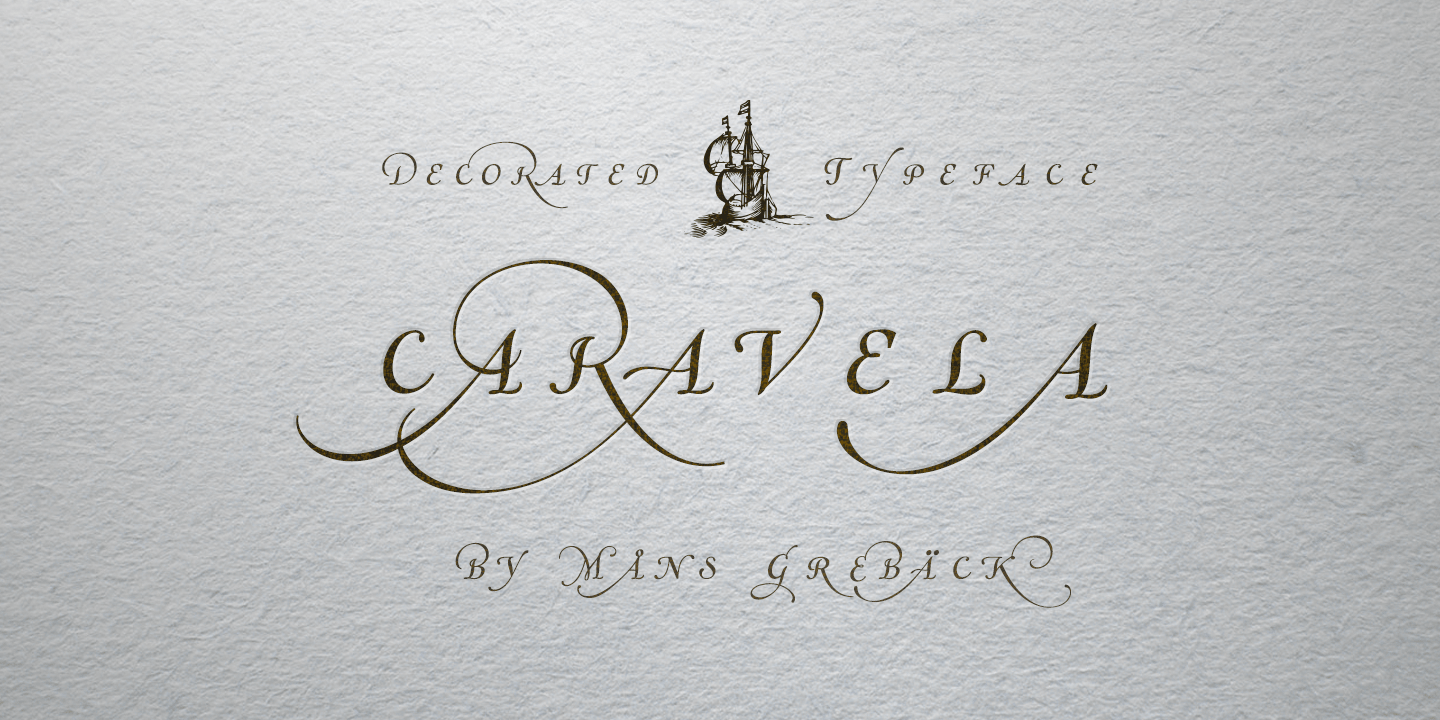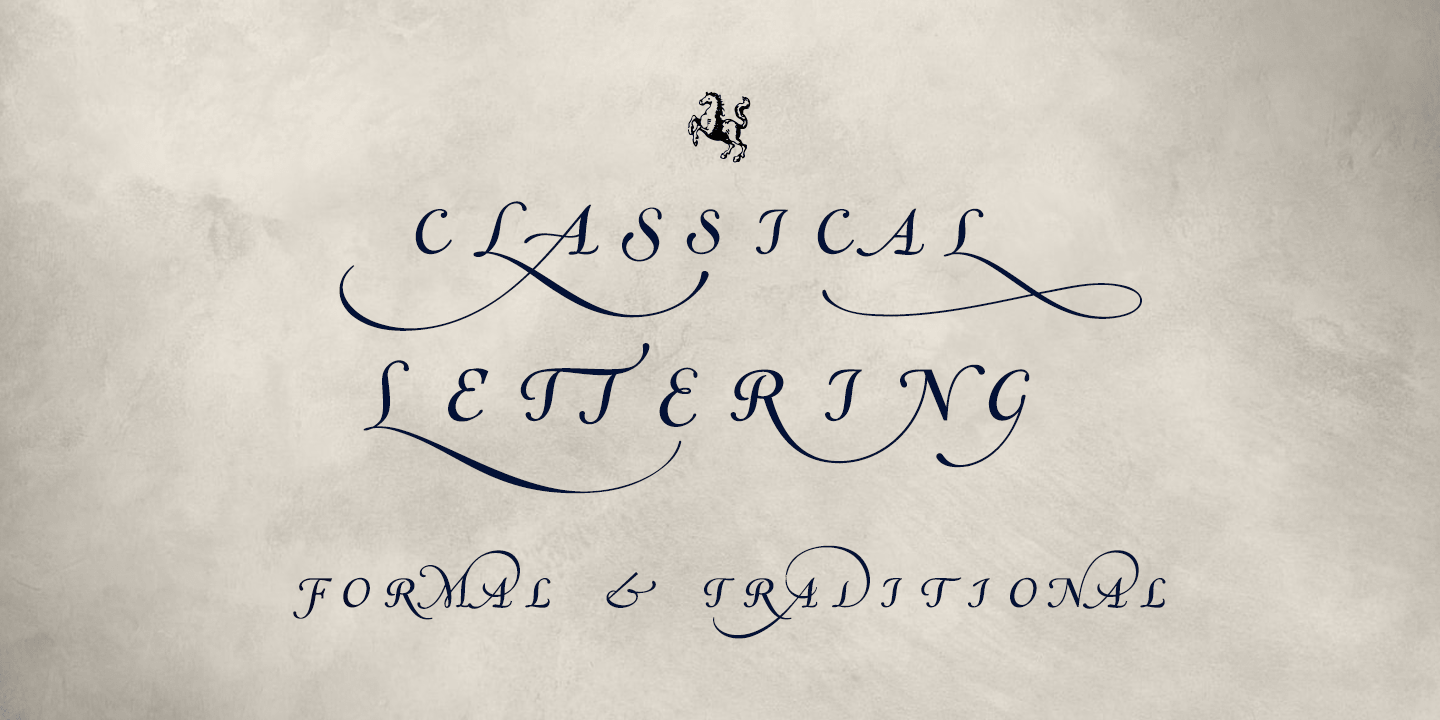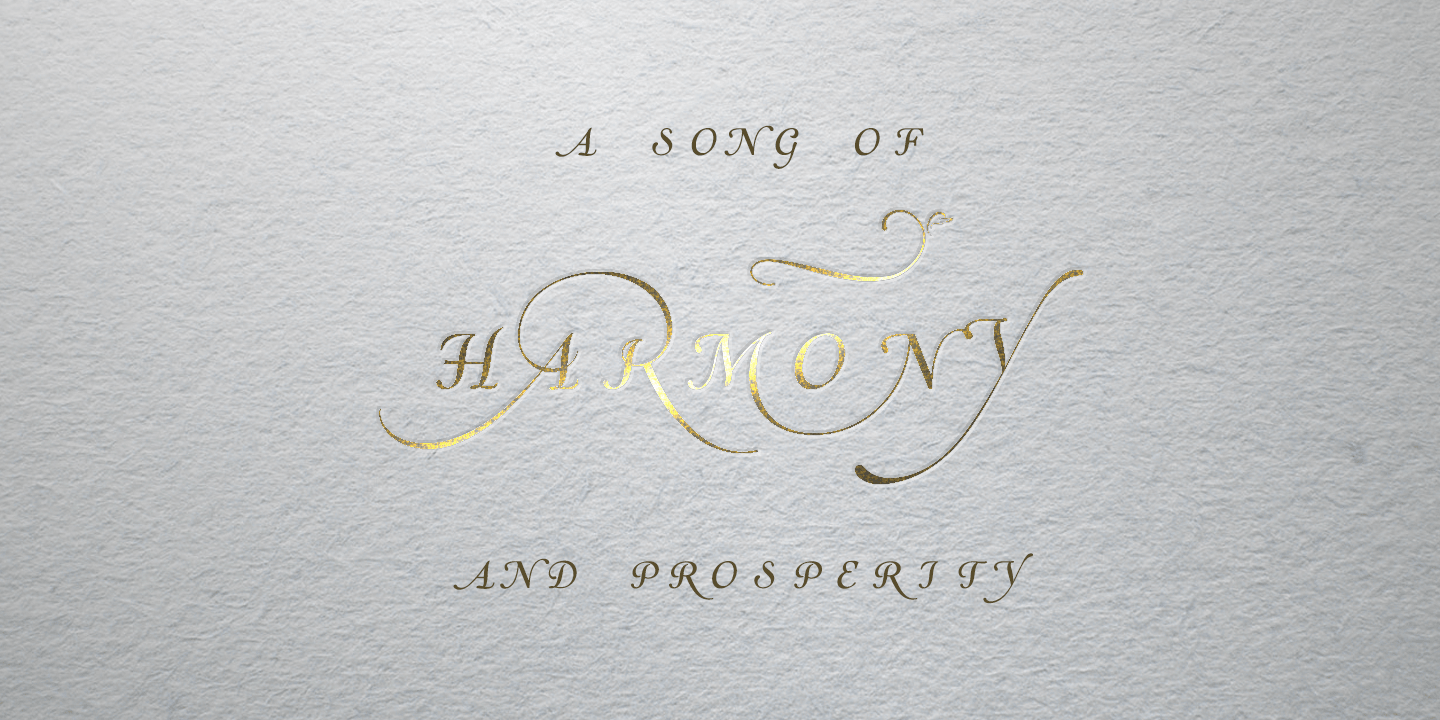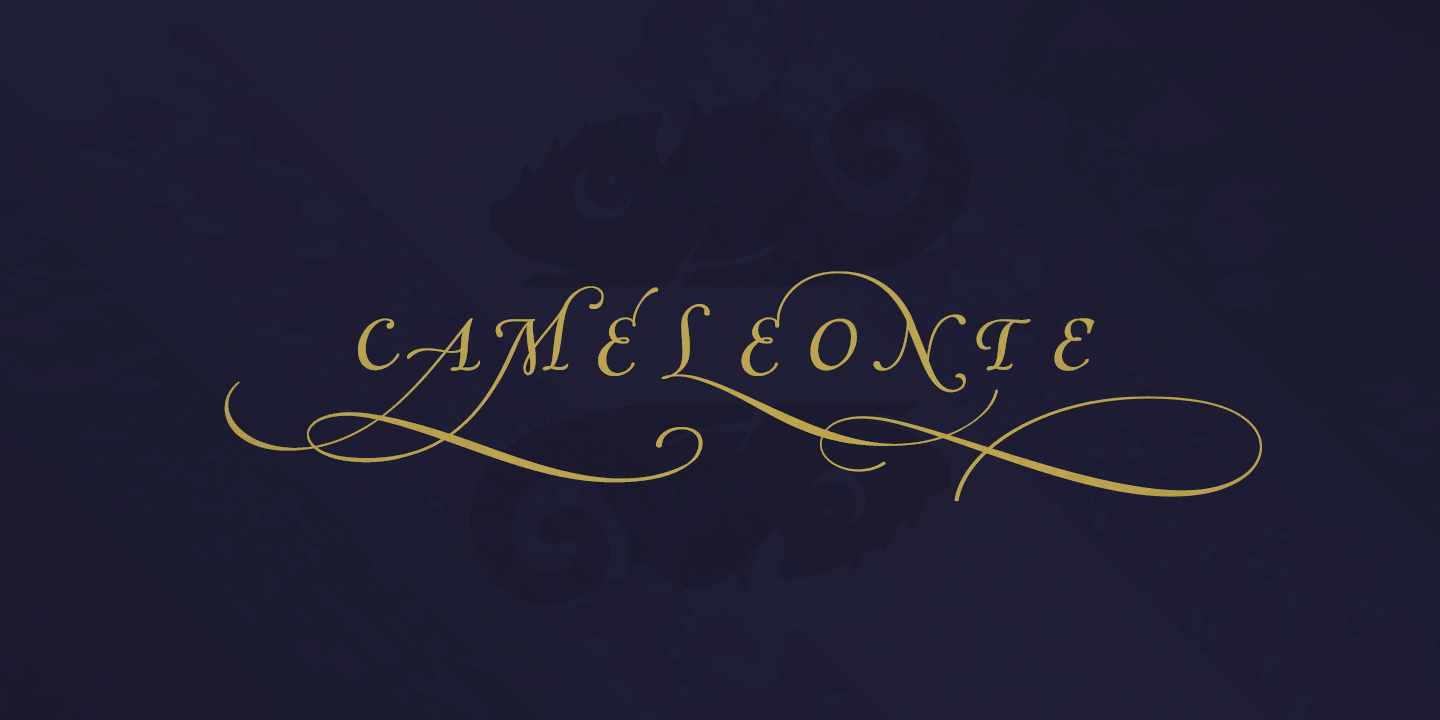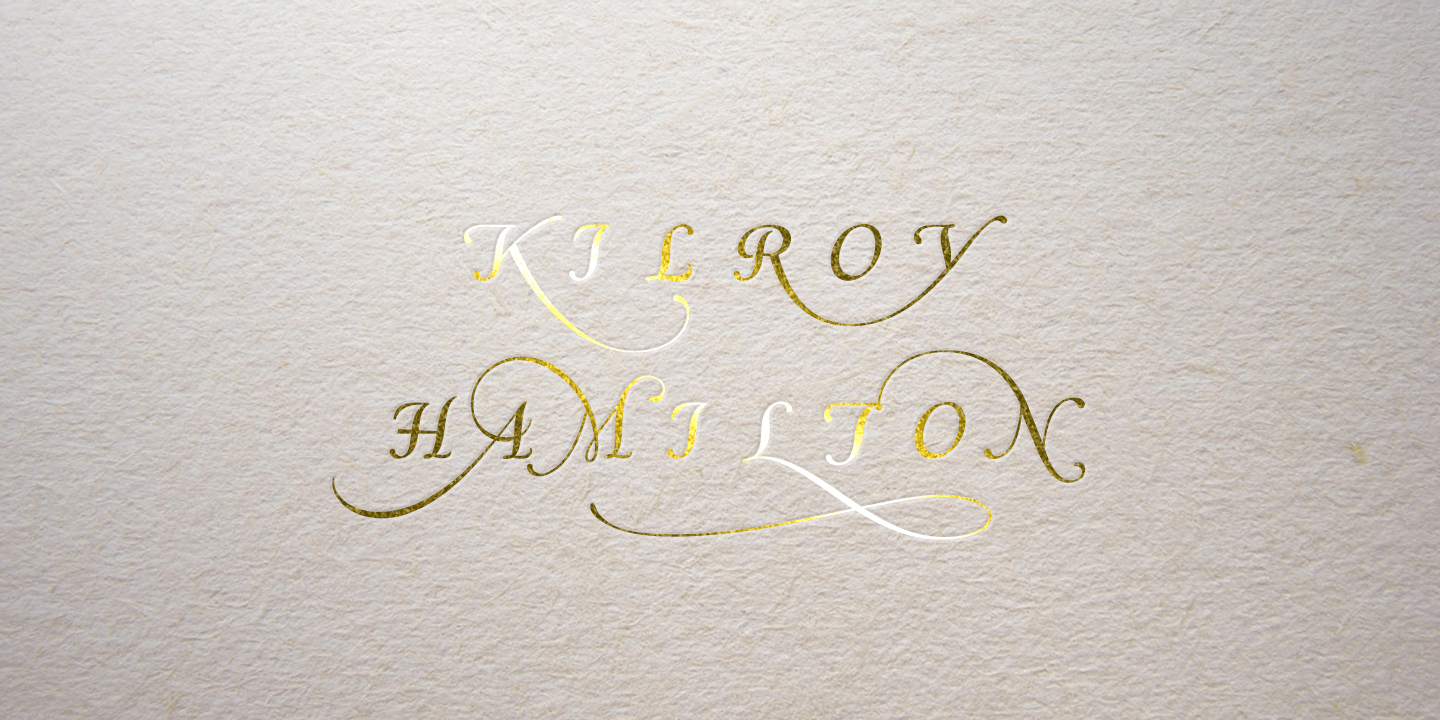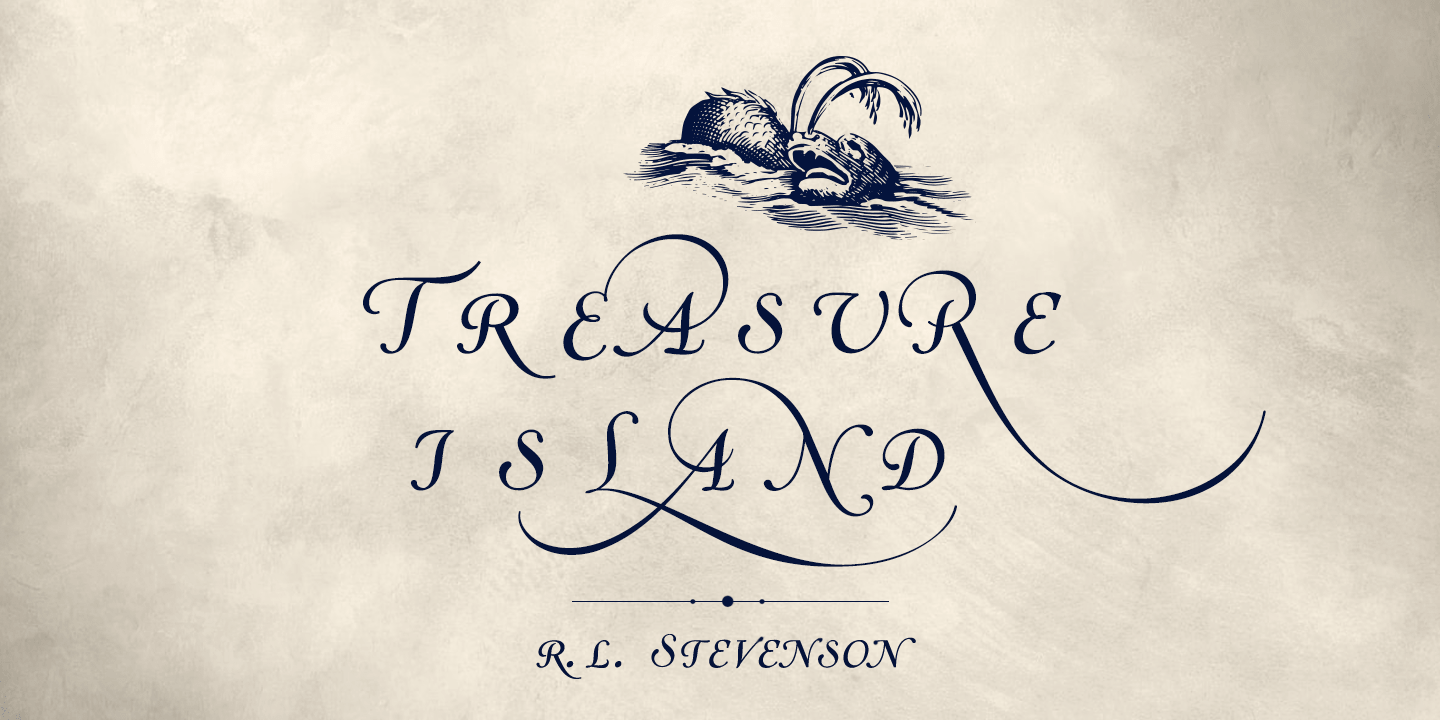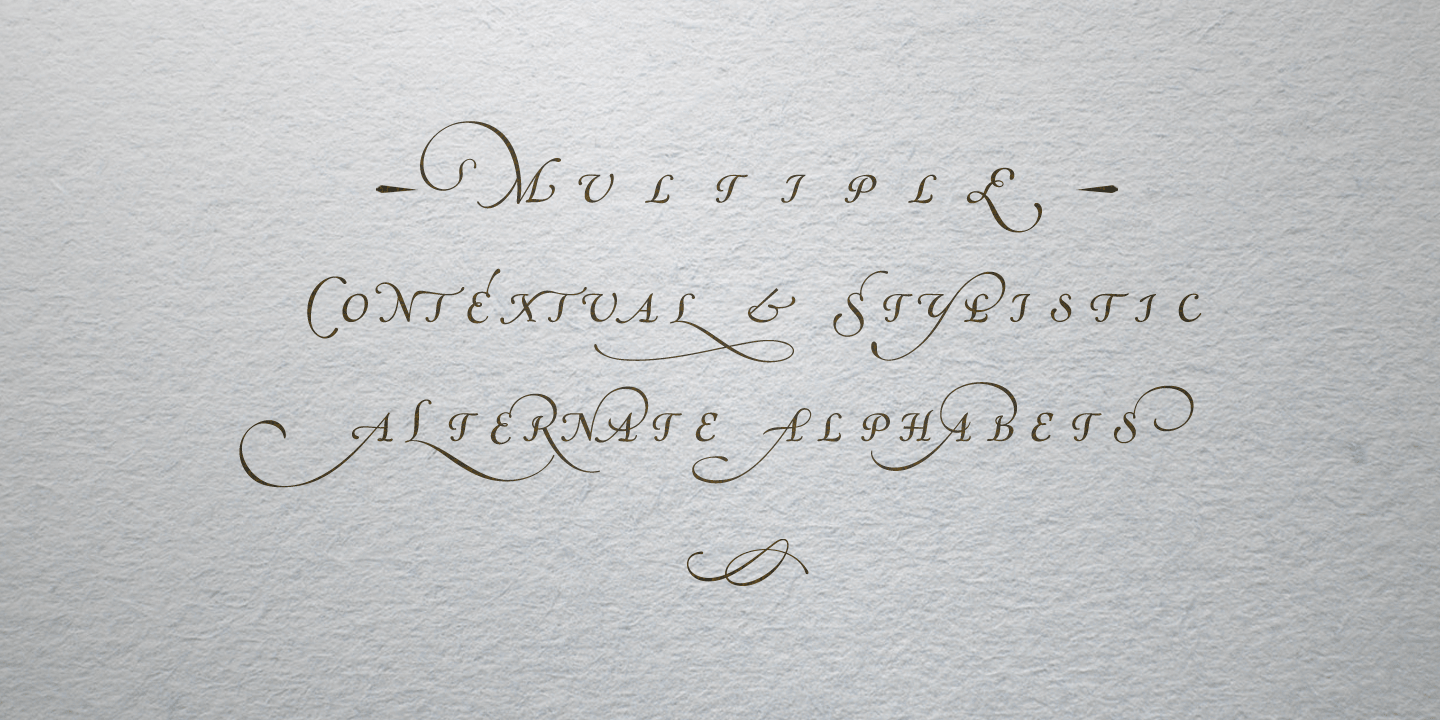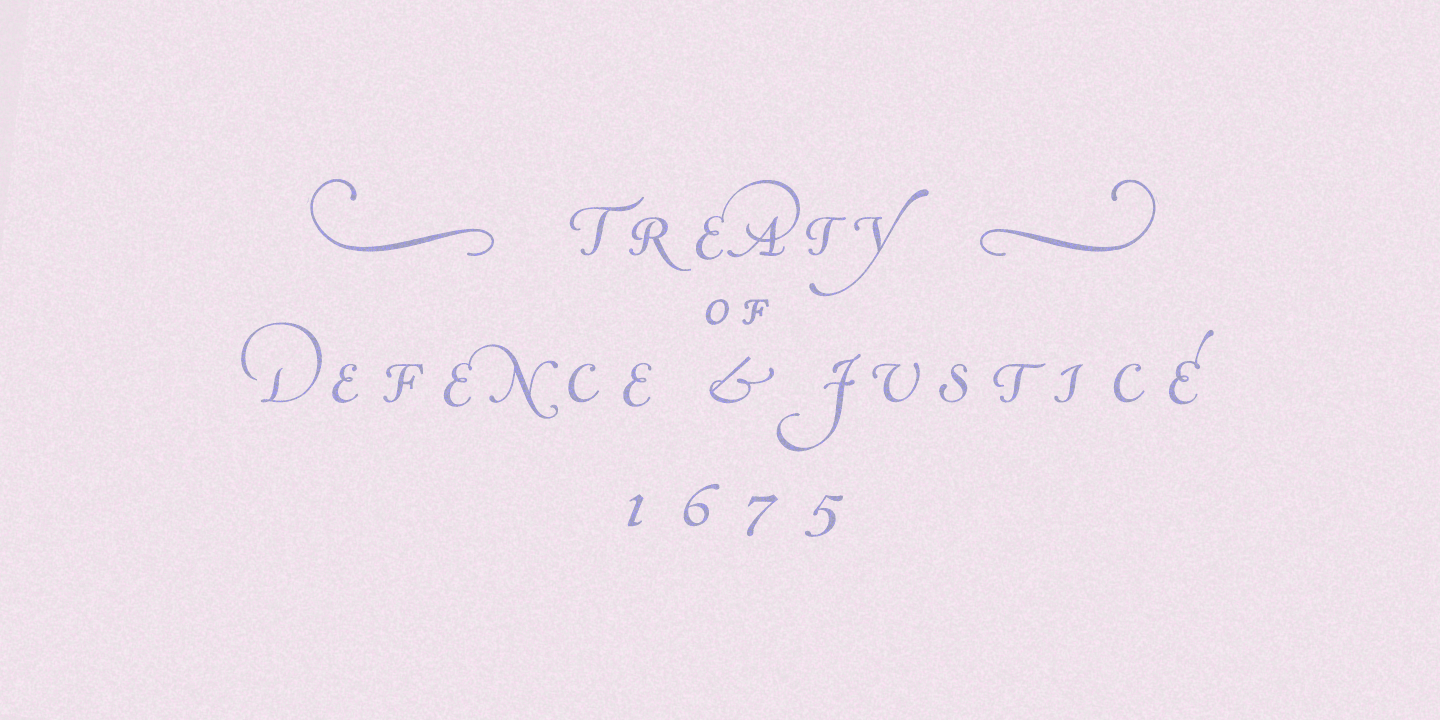
Caravela
Caravela Font
About the Caravela Font
Caravela is a decorative formal typeface drawn and realized by Mans Greback in 2020.
Inspired by 17th century typographic works, this work lifts some of the absolute best elements from the golden age of calligraphic lettering, bringing it to life in a new, modern setting.
It contains several alternate alphabets, a great set of ligatures and hundreds of contextual functions, which combined make the writing appear as a true hand-painted piece of art.
Also included is the Caravela Swash style, a font that contains more than 50 decorative elements to be used with the lettering for an even greater visual effect.